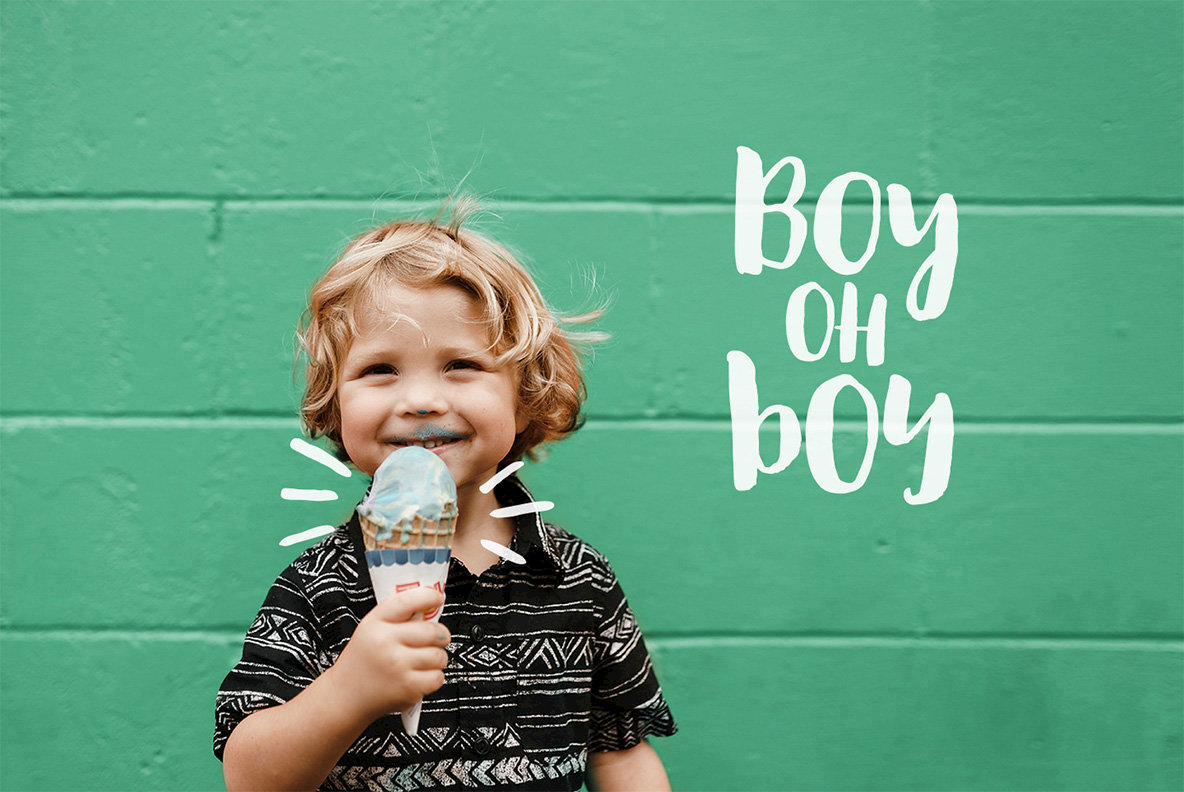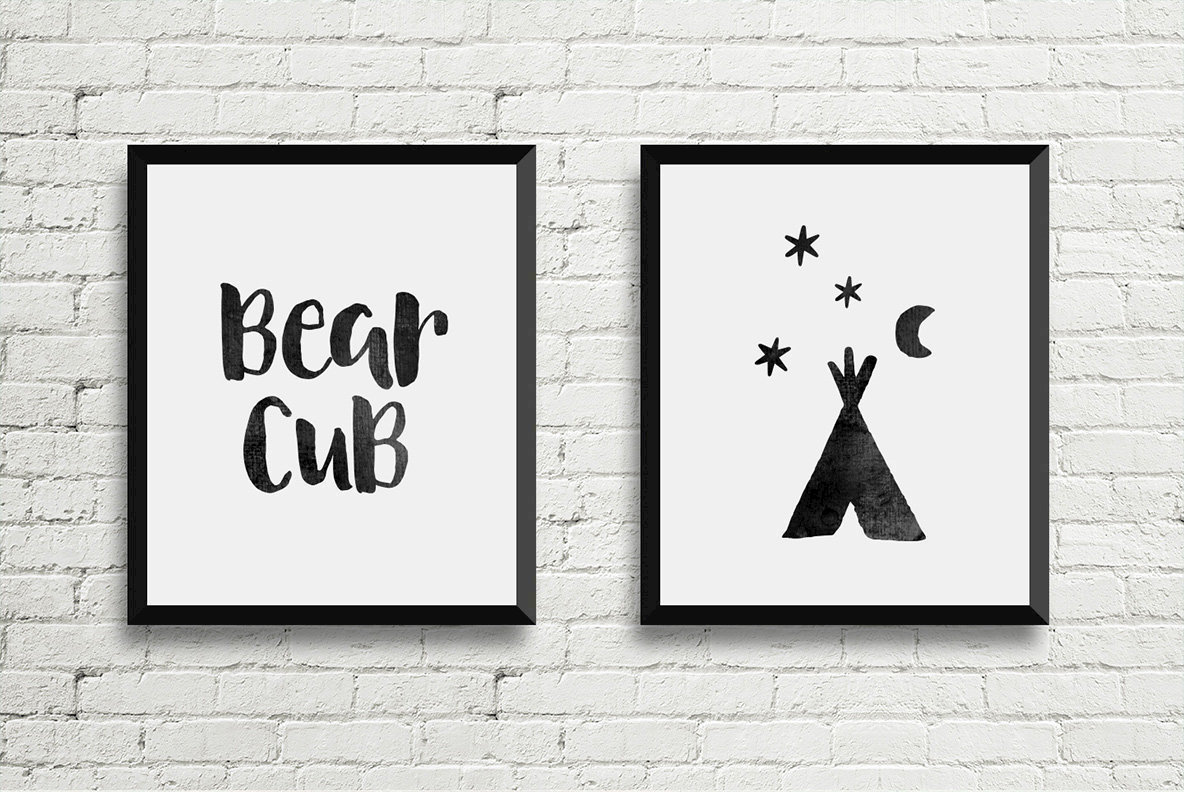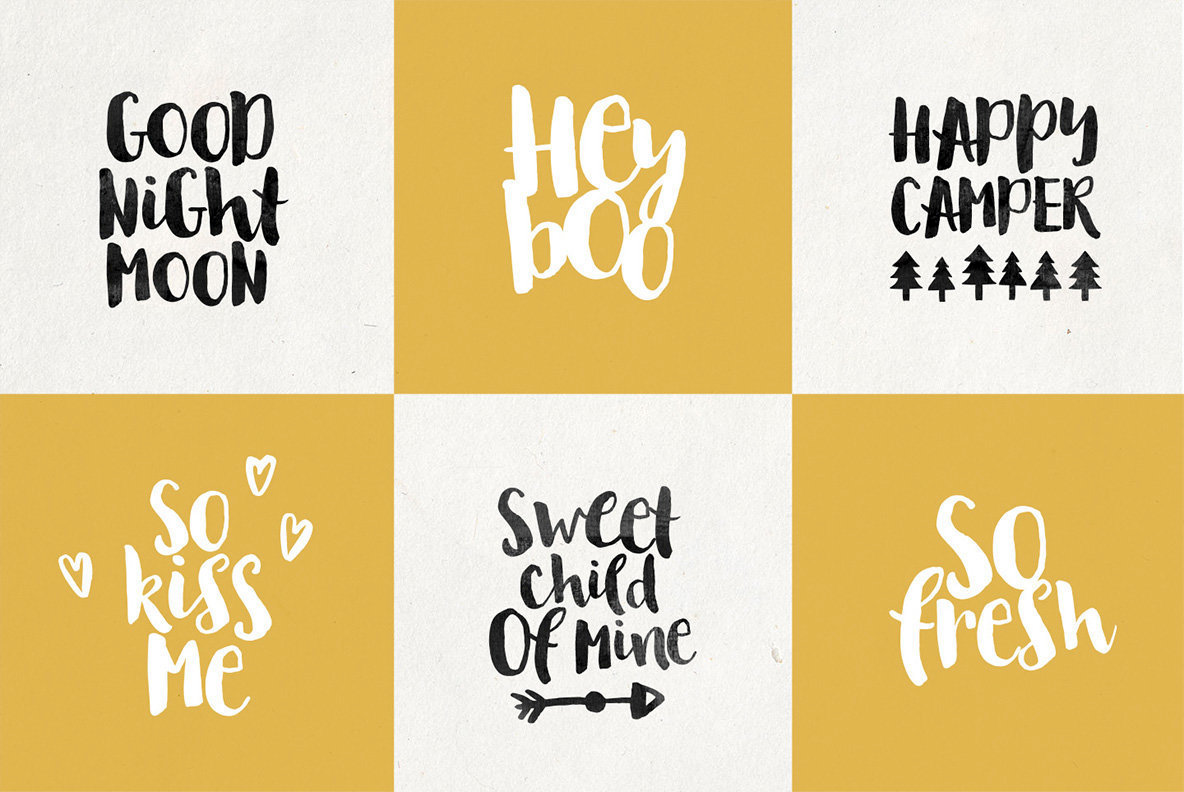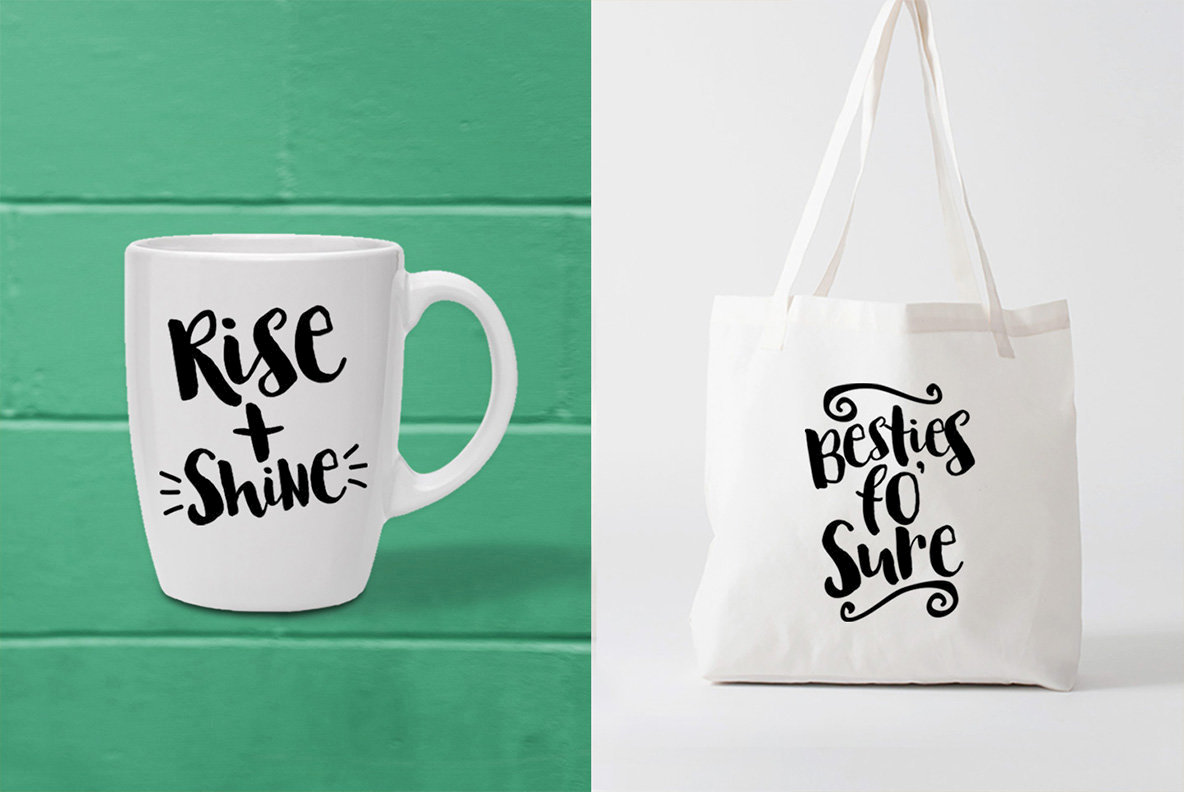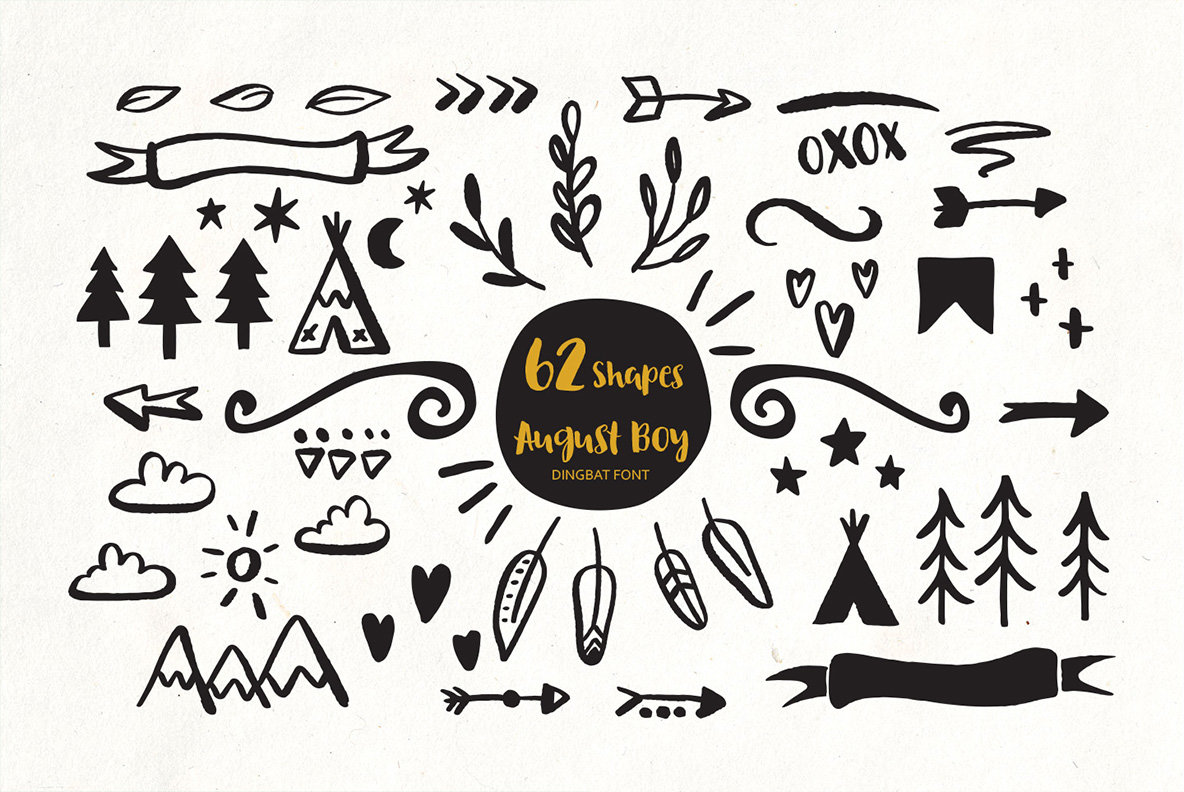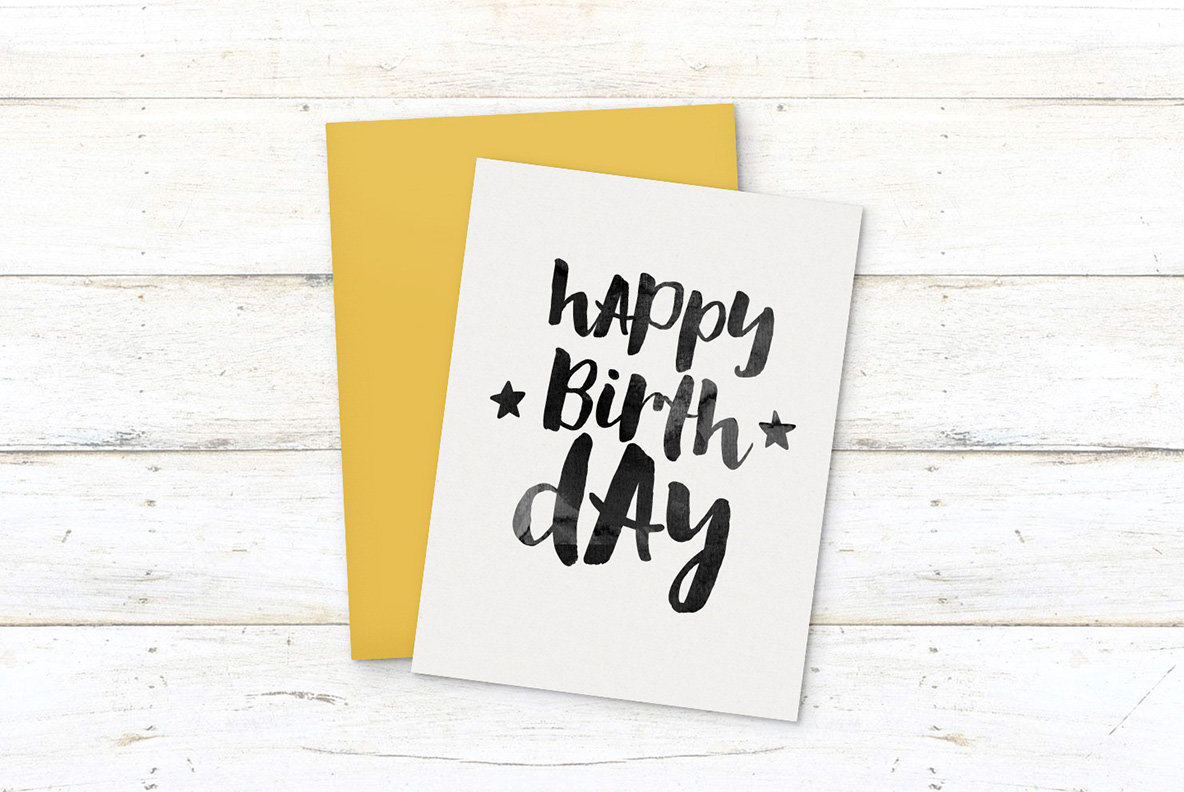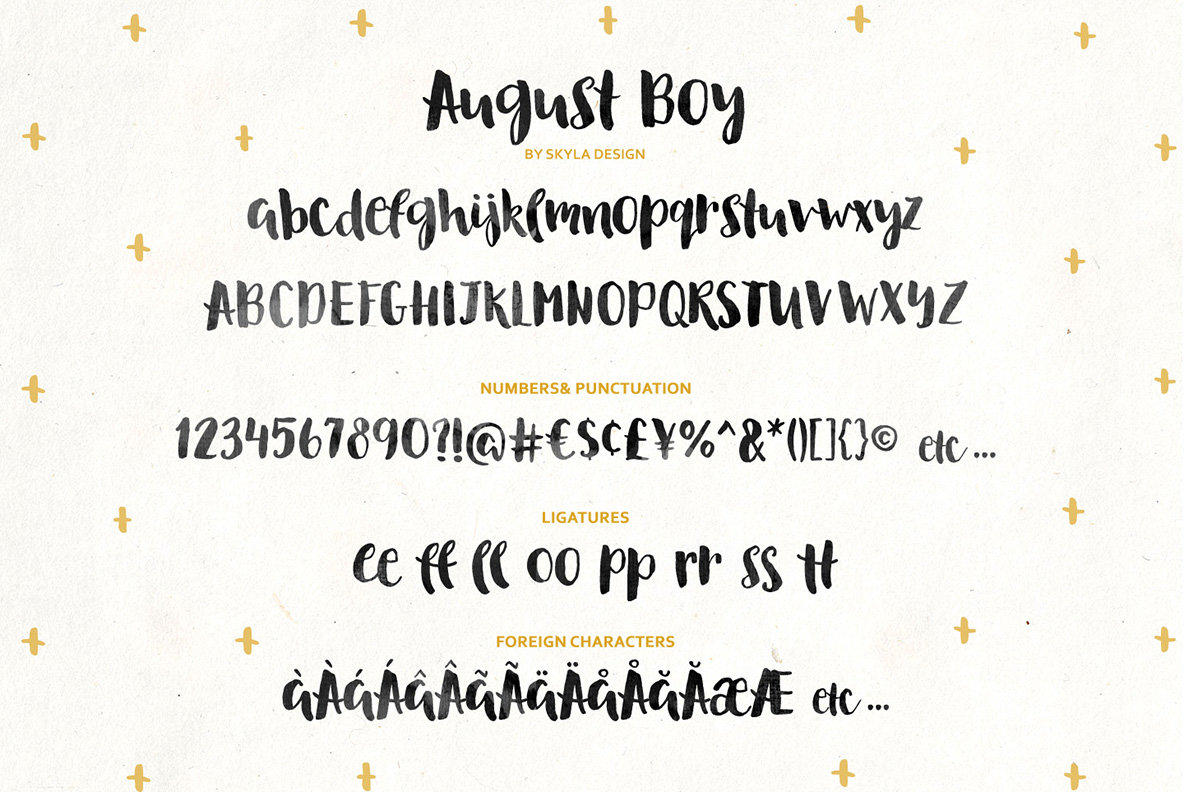
August Boy Font
August Boy is a bold, brush font with 62 bonus shapes so you can easily whip up new creations. It's perfect for making cute cards, kids quotes, crafting and any other lovely projects you're working on.
August Boy Regular contains a total of 243 characters, including lowercase, uppercase, numbers, punctuation, ligatures & international characters.
August Boy Dingbat includes 62 shapes which you can type out using the characters a-z, A-Z, 0-9.